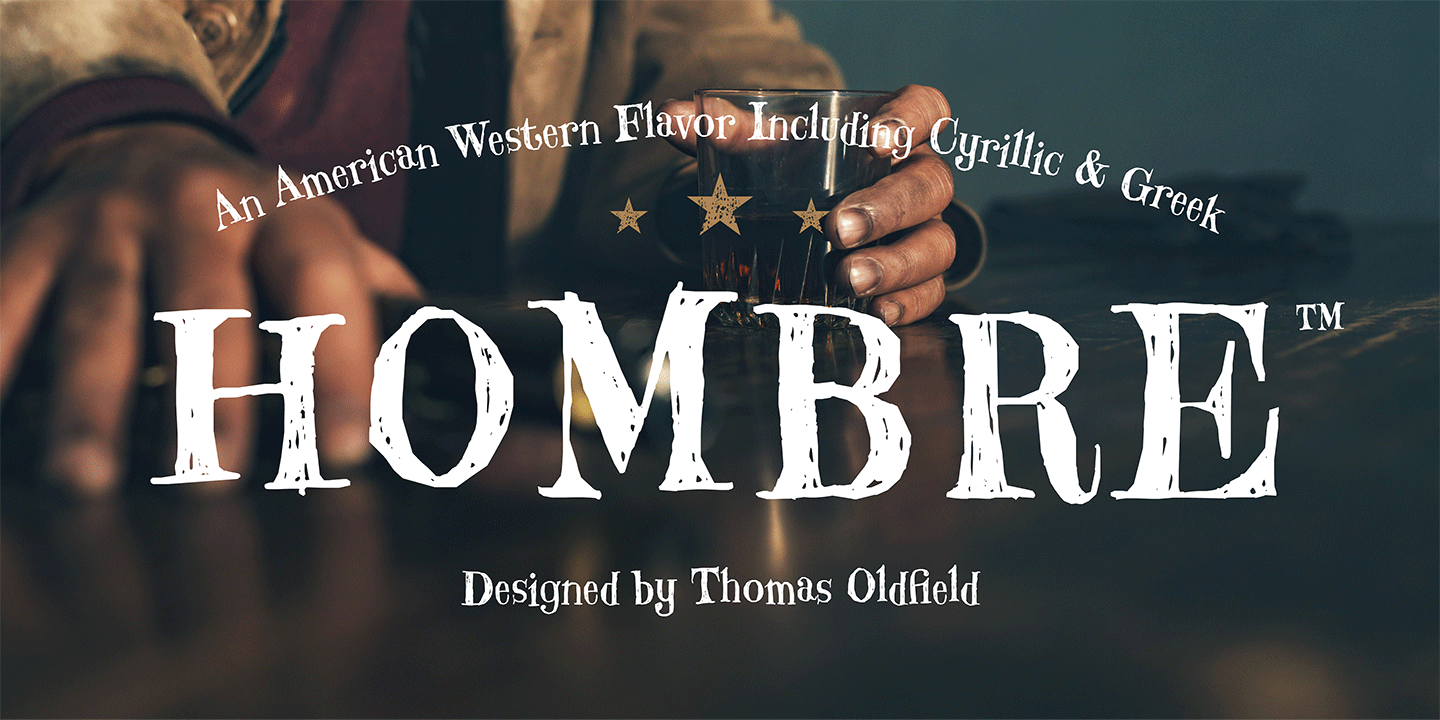
Hombre Font is ideal for masculine lifestyle branding, rugged outdoor equipment packaging, craft beer labeling, barbershop signage, vintage motorcycle graphics, artisanal product branding, western-themed designs, men's fashion campaigns, industrial equipment branding, and authentic Americana projects. This distinctive typeface excels in environments where masculine character, authenticity, and bold presence are essential for connecting with target audiences.
What makes Hombre Font exciting is its perfect embodiment of rugged masculinity and authentic craftsmanship through carefully designed letterforms that convey strength and reliability. The font features robust, hand-crafted characteristics with subtle weathered details that communicate genuine authenticity and timeless appeal. This masculine aesthetic makes it ideal for brands seeking to establish strong, trustworthy connections with audiences who value traditional craftsmanship and authentic experiences.
Hombre Font family includes Light, Regular, Medium, Bold, Black, Condensed, Distressed, and Outline variants. Each style maintains the font's distinctive masculine character while offering comprehensive flexibility for creating impactful typographic compositions that reflect traditional craftsmanship values and rugged lifestyle aesthetics.
The Hombre Font Free Download provides designers with access to a premium masculine typeface that captures the spirit of authentic American craftsmanship and rugged individualism. This font's bold personality and artisanal qualities make it particularly valuable for lifestyle brands, craft industries, and organizations targeting audiences who appreciate traditional values and authentic experiences.
Creative professionals appreciate the font's ability to instantly communicate masculinity, authenticity, and craftsmanship heritage. The letterforms' robust characteristics and weathered appearance create emotional connections that standard corporate fonts cannot achieve, making it essential for projects requiring distinctive masculine personality and authentic appeal.
When working with Hombre Font, designers can create compelling visual narratives that resonate with masculine lifestyle audiences and craft enthusiasts. The font's rugged nature makes it especially effective for brands in outdoor recreation, craft beverages, artisanal products, and traditional services where authenticity and masculine appeal are crucial for market connection.
For digital applications, Hombre Font maintains its distinctive rugged qualities across different platforms and screen sizes. Its optimized spacing and kerning ensure professional results while preserving the font's authentic masculine character in both digital and print environments.
Design studios consistently choose Hombre Font for projects requiring authentic masculine appeal and craftsmanship distinction, where conventional typography cannot capture the desired rugged authenticity and traditional values that define masculine lifestyle culture.